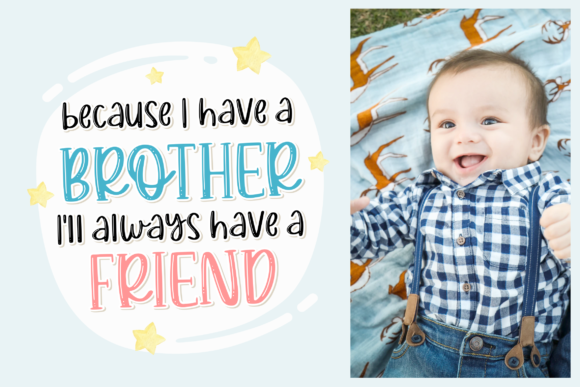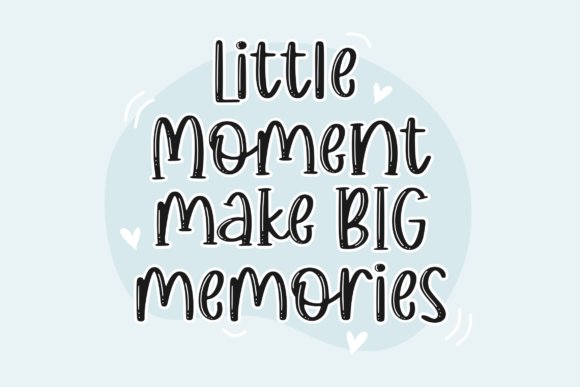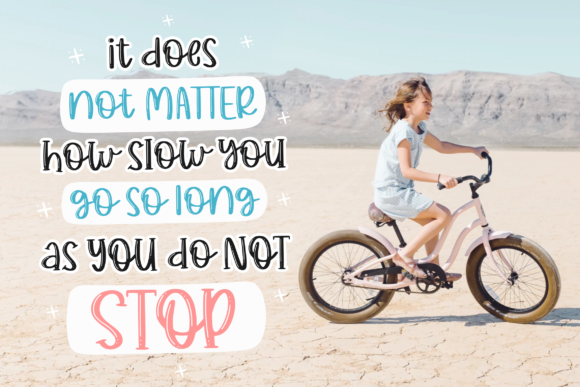
Introduction to Moon Charming Font
Moon charming is a superb duo font (handwritten and serif).
It looks friendly and fun, and it will make each of your projects seem authentic and unique .
Key Features of Moon Charming Font
Why Choose Moon Charming Font?